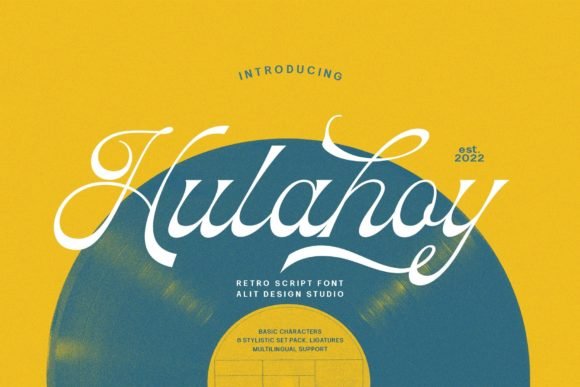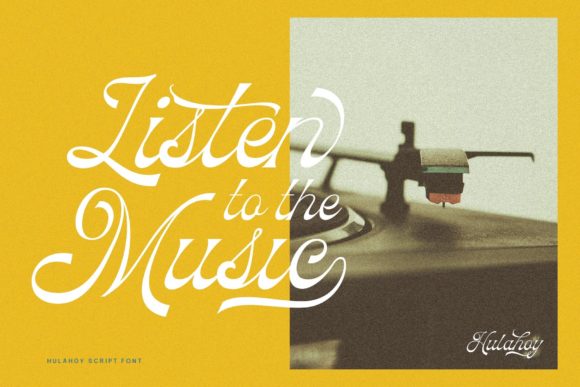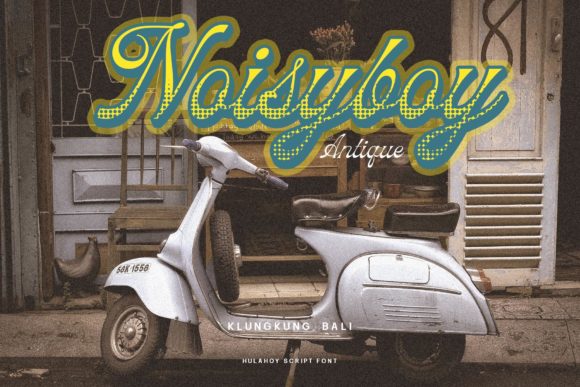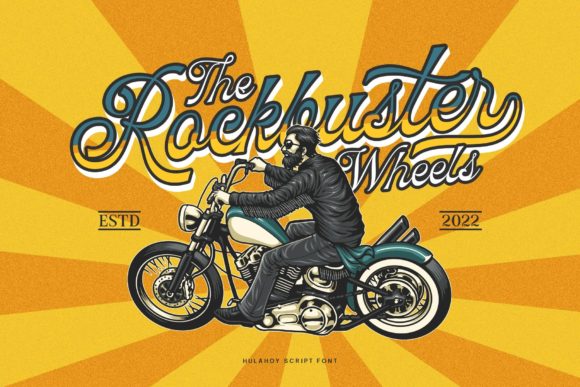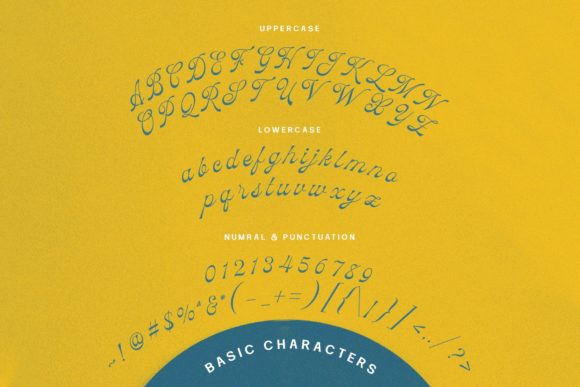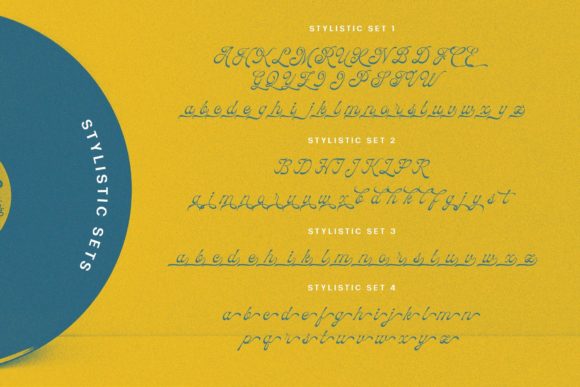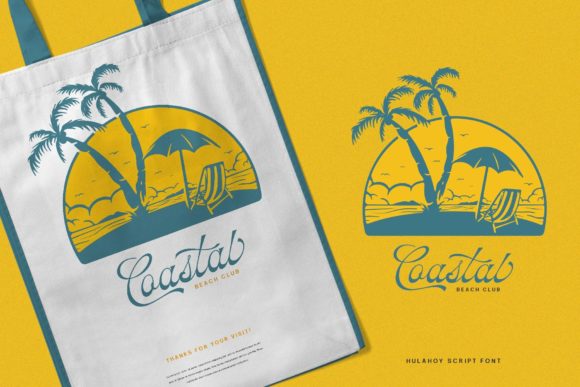
The Perfect Blend of Retro Charm and Modern Flair
Remember that moment when you’re working on a design project, and you’re stuck on finding the perfect font to give it that extra oomph? You’ve got the idea, the colors, and the layout, but something’s missing – a touch of personality that sets it apart from the rest. That’s where the Hulahoy Font comes in, a cool, retro-styled display font that’s about to become your new best friend.
With its PUA encoded design, you’ll have access to a world of glyphs and swashes that will elevate your designs to the next level. Whether you’re a seasoned designer or just starting out, the Hulahoy Font is an invaluable addition to your toolkit. Its unique blend of classic charm and modern flair makes it the perfect choice for anyone looking to add a touch of sophistication to their work.
Hulahoy Font Key Features
- Font Family: Hulahoy is a unique, hand-drawn font designed to evoke a sense of whimsy and playfulness.
- Unique Characteristics: Hulahoy features a distinctive, hand-drawn style with intricate details and flourishes, making it perfect for adding a touch of personality to designs.
- Character Set: Includes a comprehensive set of characters, including uppercase and lowercase letters, numbers, and punctuation marks.
Hulahoy Font Review
As a designer, I was excited to dive into the Hulahoy Font and see what it had to offer. Overall, I was impressed with its unique charm and character.
- ✨ The Hulahoy Font has a distinctive, hand-drawn feel that sets it apart from other fonts. It’s perfect for adding a touch of whimsy and personality to your designs.
- ✨ The font is highly legible, even at smaller sizes, making it a great choice for body text or headlines.
- ✨ The Hulahoy Font has a wide range of weights and styles, giving you plenty of options to choose from.
- ⚠️ While the font is highly legible, it may not be the best choice for formal or professional projects. Its playful, hand-drawn feel may not be suitable for more serious or corporate designs.
- ⚠️ The font may require some adjustments to line spacing or letter spacing to ensure optimal readability.
Overall, I think the Hulahoy Font is a great choice for designers looking for a unique and playful font to add some personality to their designs. While it may not be suitable for every project, it’s definitely worth considering for those looking for something a little different.
The Hulahoy Font is ideal for creating playful, eye-catching designs, such as:
- Social media graphics and posts